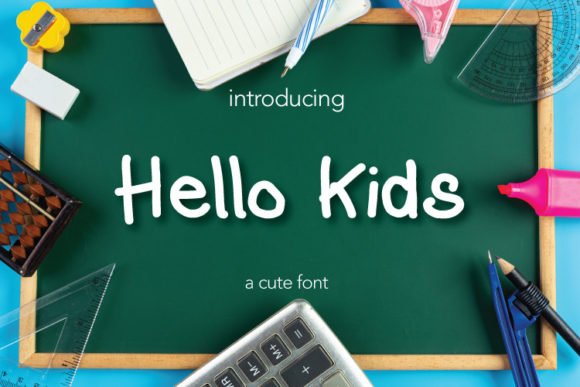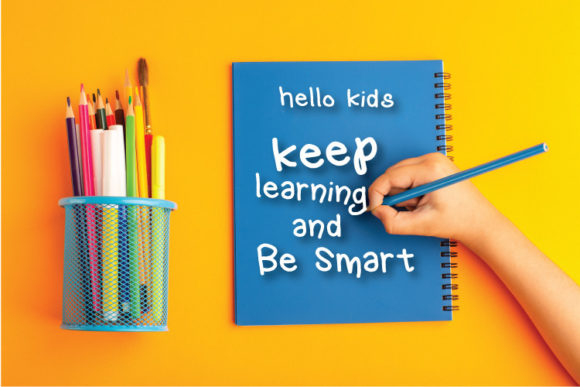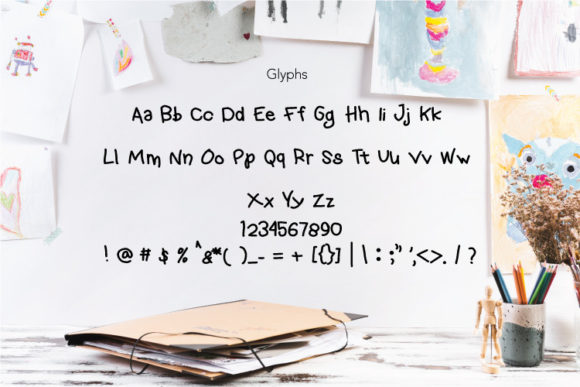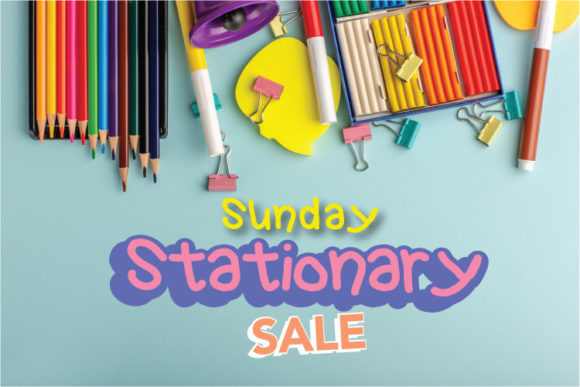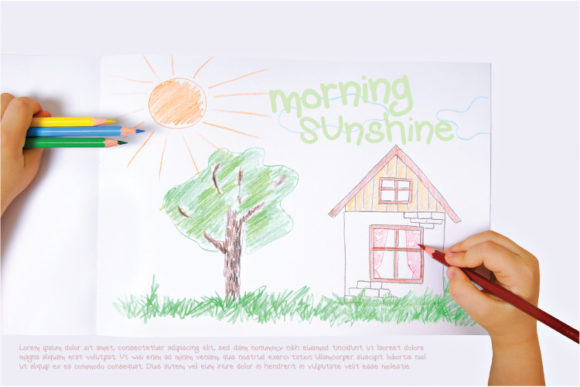
Creating Memories, One Chalkboard at a Time
Remember the magic of standing in front of a chalkboard, watching your teacher’s handwriting come to life as they scribbled notes and illustrations for the day’s lesson? For many of us, those moments are etched in our memories as some of the most treasured moments of childhood. And now, designers and educators alike can capture that same charm in their own work with the Hello Kids Font.
This charming handwritten font is designed specifically for chalkboard quotes and teaching materials, bringing a personal and realistic touch to your designs. Whether you’re creating educational resources, crafting art, or simply looking for a unique way to add some personality to your work, the Hello Kids Font is the perfect tool for the job.
With its authentic look and feel, this font is a valuable addition to any designer’s toolkit. It’s the perfect way to add a touch of nostalgia and whimsy to your projects, making it a must-have for anyone looking to create something truly special.
Hello Kids Font Key Features
- Unique Characteristics: The font features a playful, hand-drawn design with rounded edges and smooth curves, perfect for children’s educational materials and entertainment products.
Hello Kids Font Review
Hello Kids Font is a charming font designed specifically for kids, and I can see why it’s popular among parents and educators. ✨ The font’s playful and colorful nature immediately grabs attention and adds a touch of whimsy to any design. ✨ The letters are rounded and soft, making it perfect for young readers or for creating a kid-friendly atmosphere.
However, there are a few limitations to consider. ⚠️ The font may not be suitable for all types of content, as it can come across as too childish or immature. ⚠️ Additionally, the font’s bold weight can be a bit too heavy-handed, making it difficult to read at smaller sizes.
Overall, I think Hello Kids Font is a great choice for designers working on children’s educational materials, kids’ party invitations, or any other project that requires a fun and playful tone. But, it may not be the best fit for more serious or professional projects.
- Playful and colorful design
- Rounded and soft letterforms
- Perfect for young readers or kid-friendly content
- Bold weight can be too heavy-handed
- May not be suitable for all types of content
The Hello Kids Font is perfect for:
- Kid-friendly websites and apps
- Education and learning materials